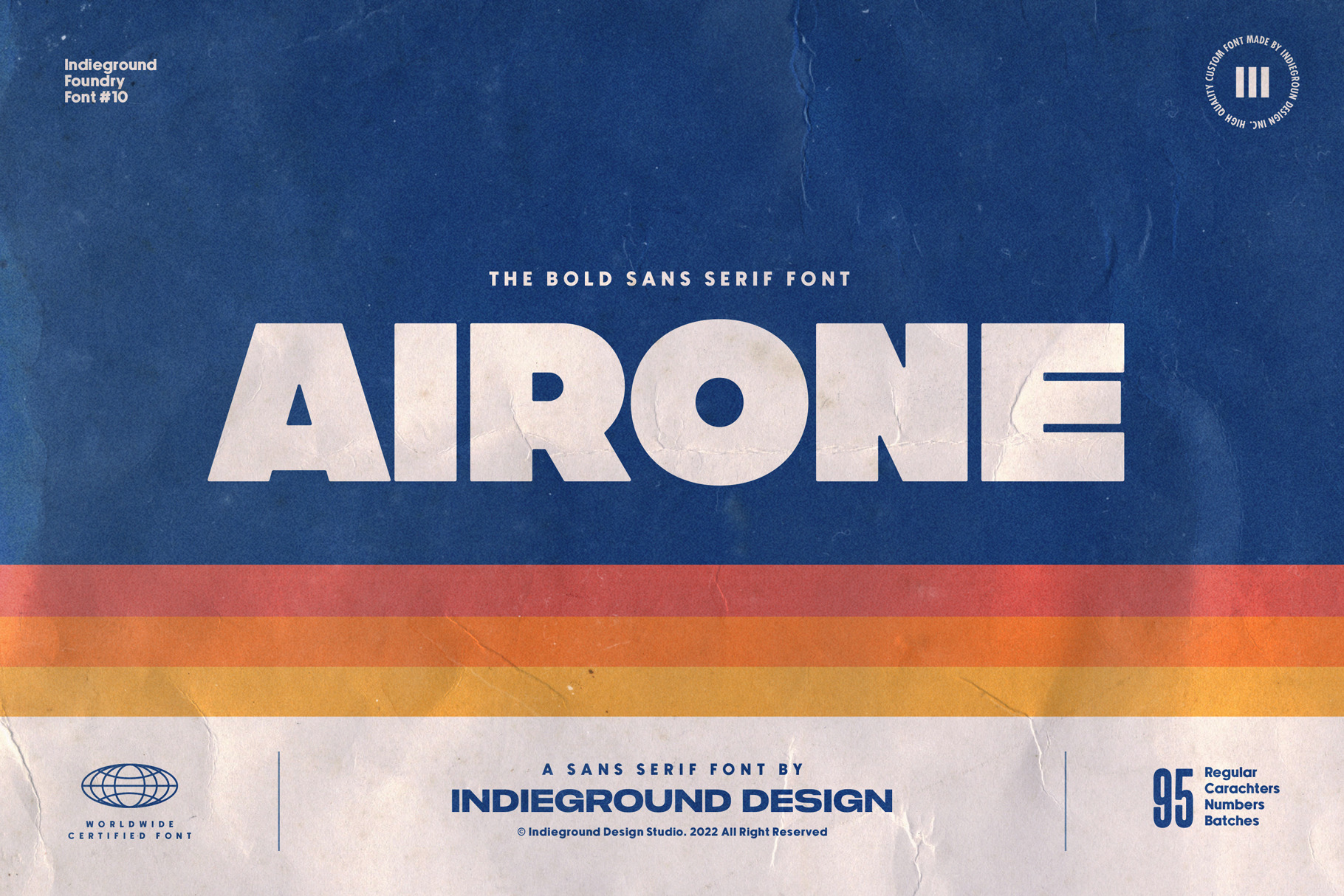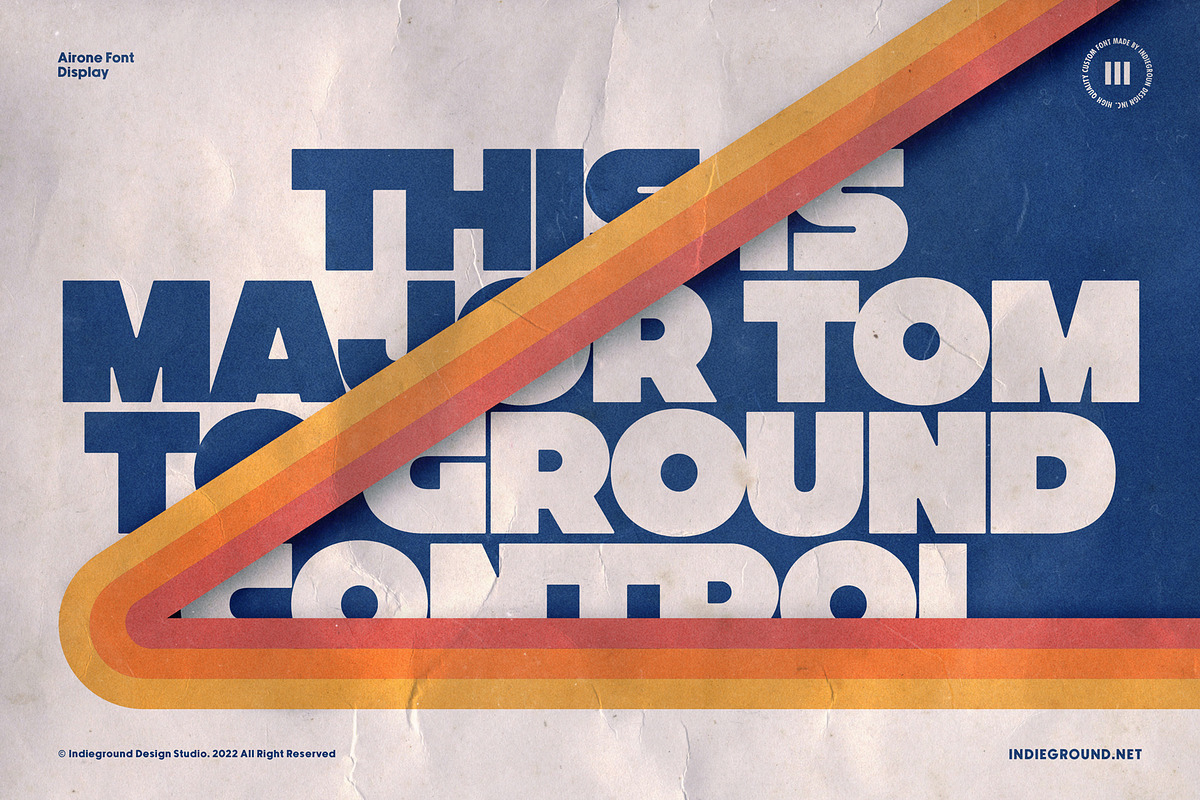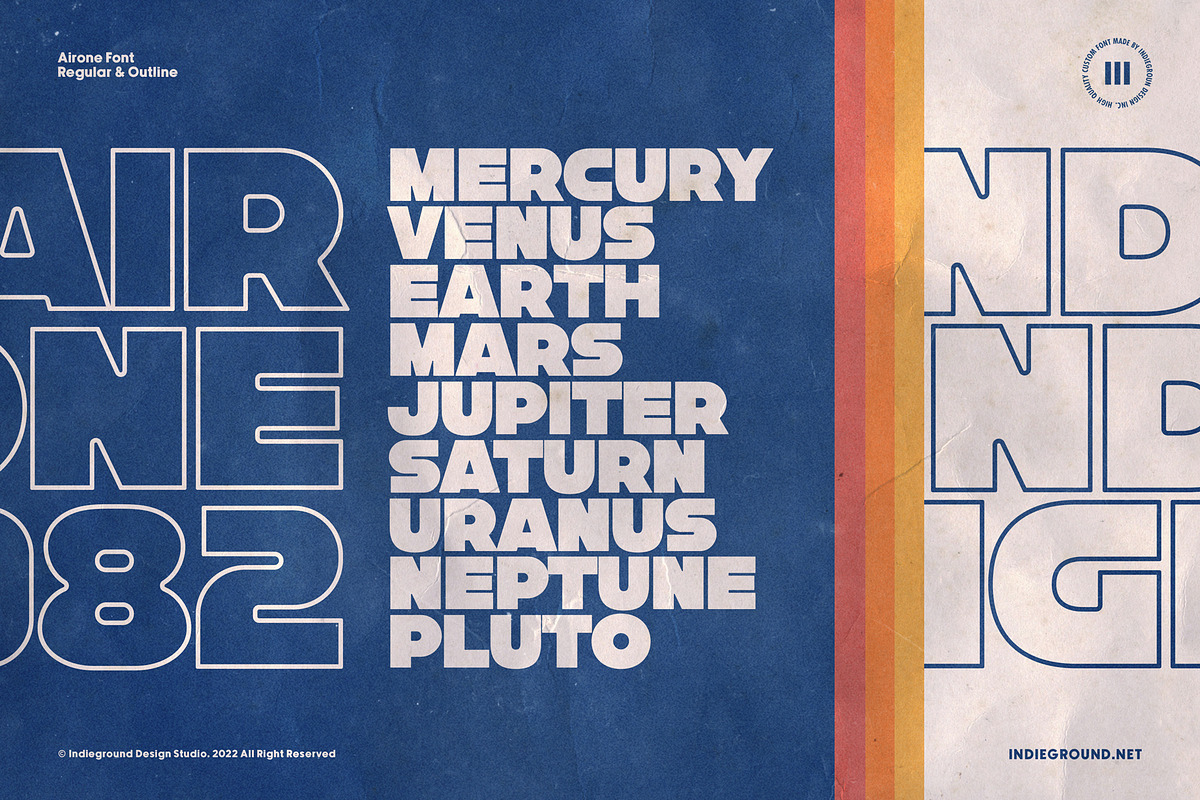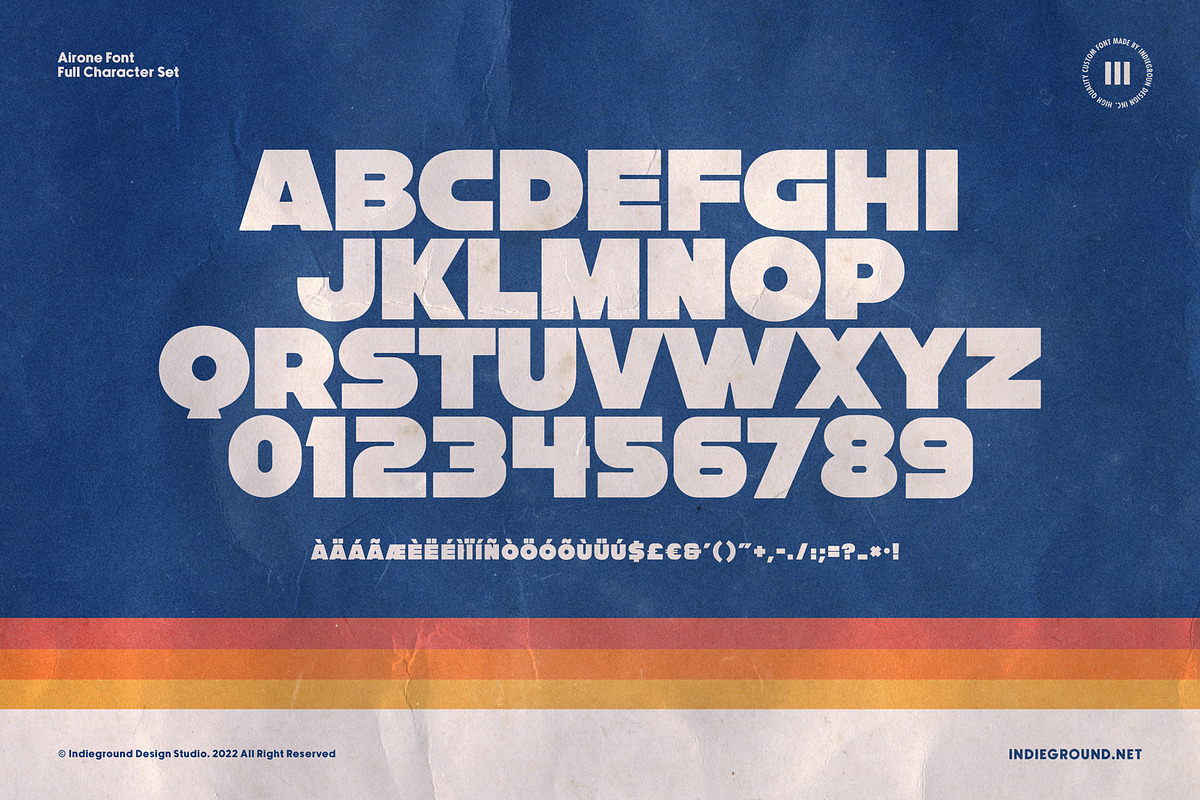
Airone Font
Airone Font by Indieground This extra-bold display font made by the Indieground Team is perfect for your heavy titles and headlines. This typeface adds a bold and iconic style to your artworks, both retro and modern. It’s perfect for any graphic design or typography project that requires a solid mood. A font with a big fat personality that will make all your artistic creations come alive with style and weight. This regular version includes the full characters set and also the outlined version shown in the preview.